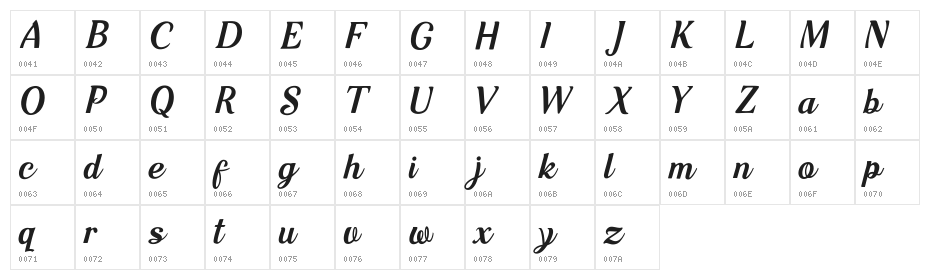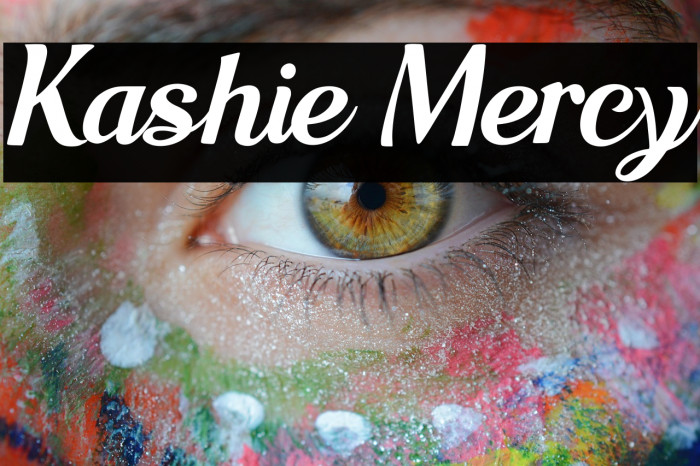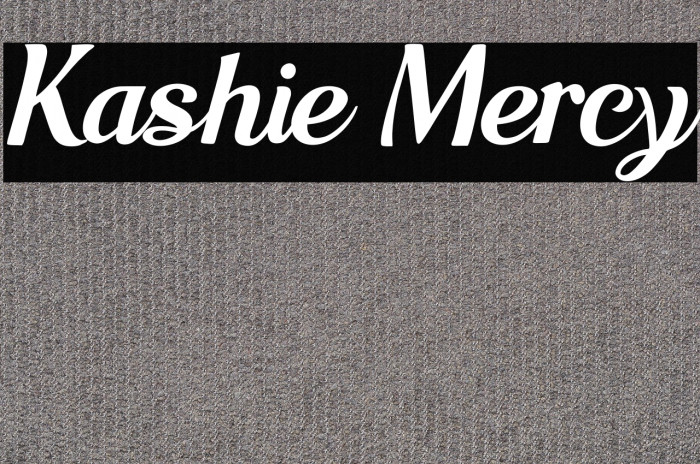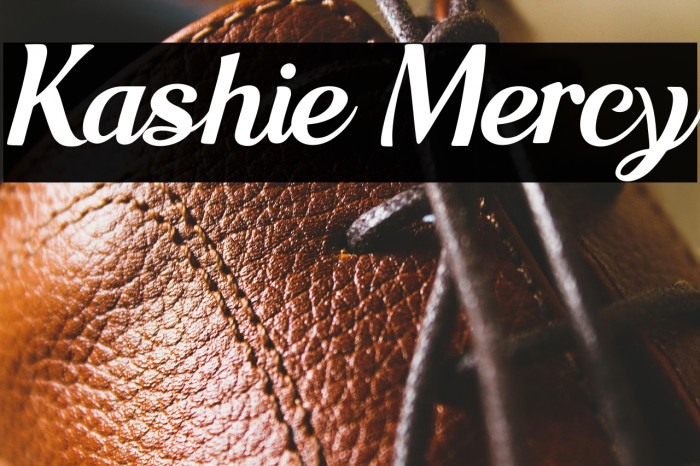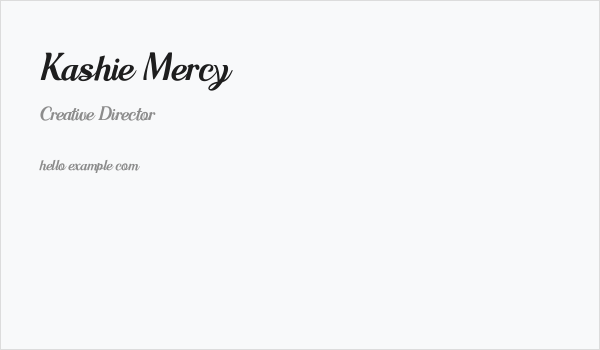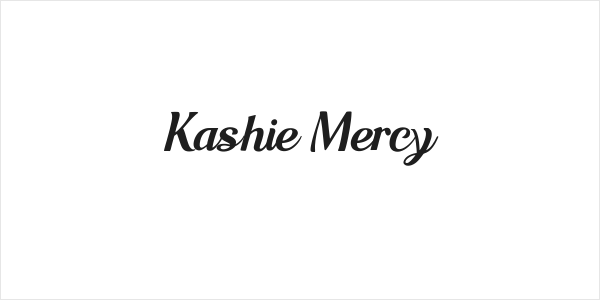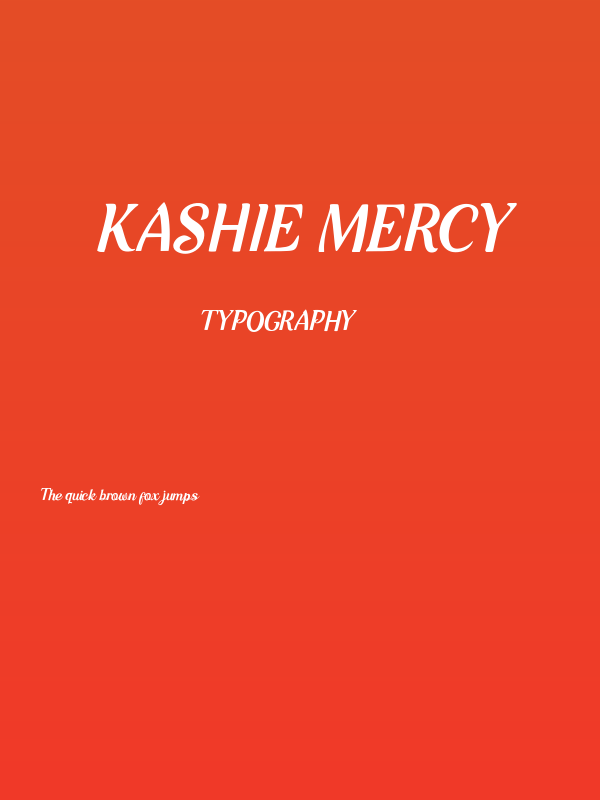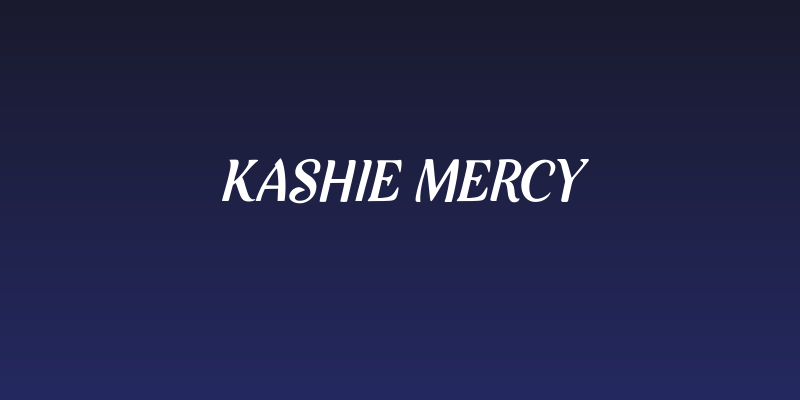
Kashie Mercy Font
Kashie Mercy Description
This font exhibits a dynamic and elegant script style, characterized by its flowing, cursive letterforms. The uppercase letters are bold and slightly slanted, giving a sense of movement and sophistication. The lowercase letters maintain a consistent rhythm with smooth curves and loops, enhancing the font's graceful appearance. The overall design is both classic and modern, making it versatile for various applications. The numerals and special characters are crafted with the same attention to detail, ensuring a cohesive look throughout. This font is ideal for projects that require a touch of elegance and flair.
Overall StyleElegant, Modern
Use CaseLogos, Invitations, Headlines
Proposed ProjectsWedding invitations, branding, elegant packaging, and editorial design.